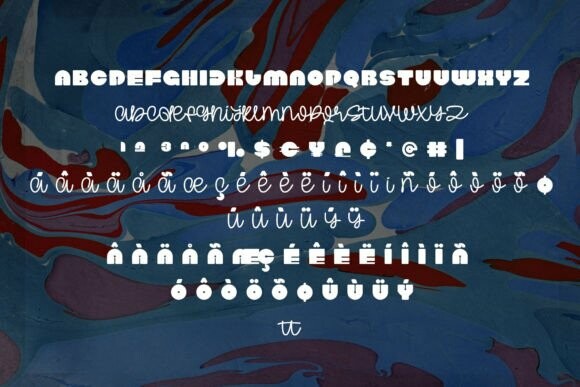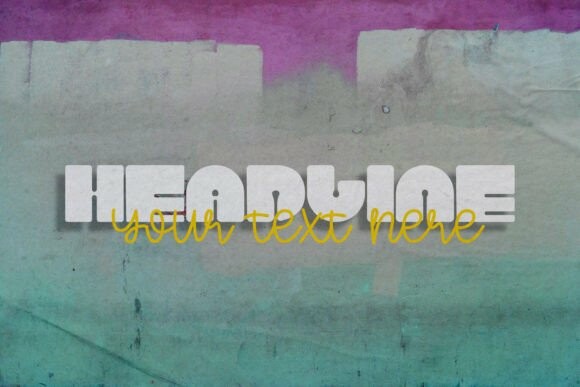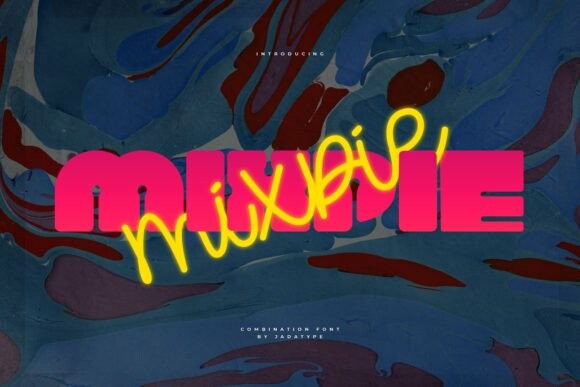
Mixpie Font
Mixpie Font, a truly unique display font that masterfully fuses bold elements with script nuances. Brimming with a robust essence, Mixpie effortlessly combines the strength of a bold font with the grace of script style, ideal for making a striking visual impact. A blended font that’s perfect for standing out, Mixpie is a dynamic typeface that adds a touch of versatility and uniqueness to any creative project.